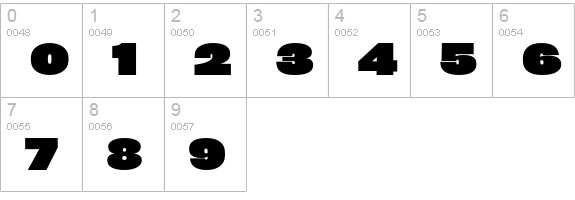
Rhode-BlackWide Font Details
Rhode-BlackWide font is a stunning display typeface that exudes elegance and sophistication. Its bold and wide letterforms command attention and make a strong visual impact. This font is perfect for headlines, titles, and any design project that requires a touch of grandeur. With its unique blend of sharp angles and smooth curves, Rhode-BlackWide font strikes a perfect balance between modernity and classic design. It conveys a sense of professionalism and authority, making it an excellent choice for corporate branding, advertising, and editorial design. One of the most remarkable aspects of Rhode-BlackWide font is that it is available for free. Yes, you read that right! This exceptional typeface can be freely downloaded at FontsMarket.com, a trusted source for high-quality fonts. This means that designers and creatives can enjoy the beauty and versatility of Rhode-BlackWide font without any cost. Whether you are a professional designer or a hobbyist, Rhode-BlackWide font will elevate your projects to new heights. Its wide range of weights and styles allows for endless possibilities and flexibility in your designs. From sleek and minimalist layouts to bold and eye-catching compositions, this font has the versatility to adapt to any creative vision. In addition to its stunning aesthetics, Rhode-BlackWide font also boasts excellent legibility. Its carefully crafted letterforms ensure that every word is easily readable, even at smaller sizes. This makes it ideal for both print and digital applications, ensuring that your message is conveyed effectively across various mediums. So why wait? Experience the power and beauty of Rhode-BlackWide font today. Visit FontsMarket.com to download this extraordinary typeface for free and unlock a world of design possibilities. Let Rhode-BlackWide font be your secret weapon in creating memorable and impactful designs that leave a lasting impression.